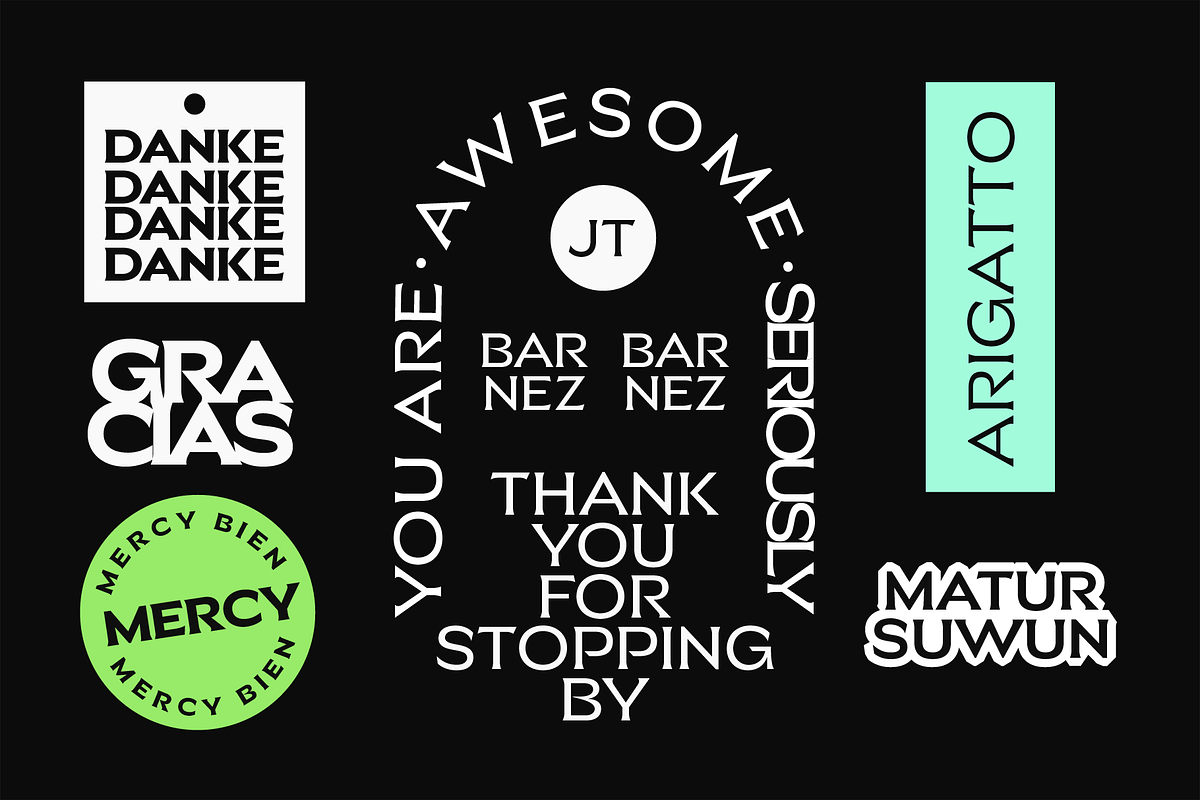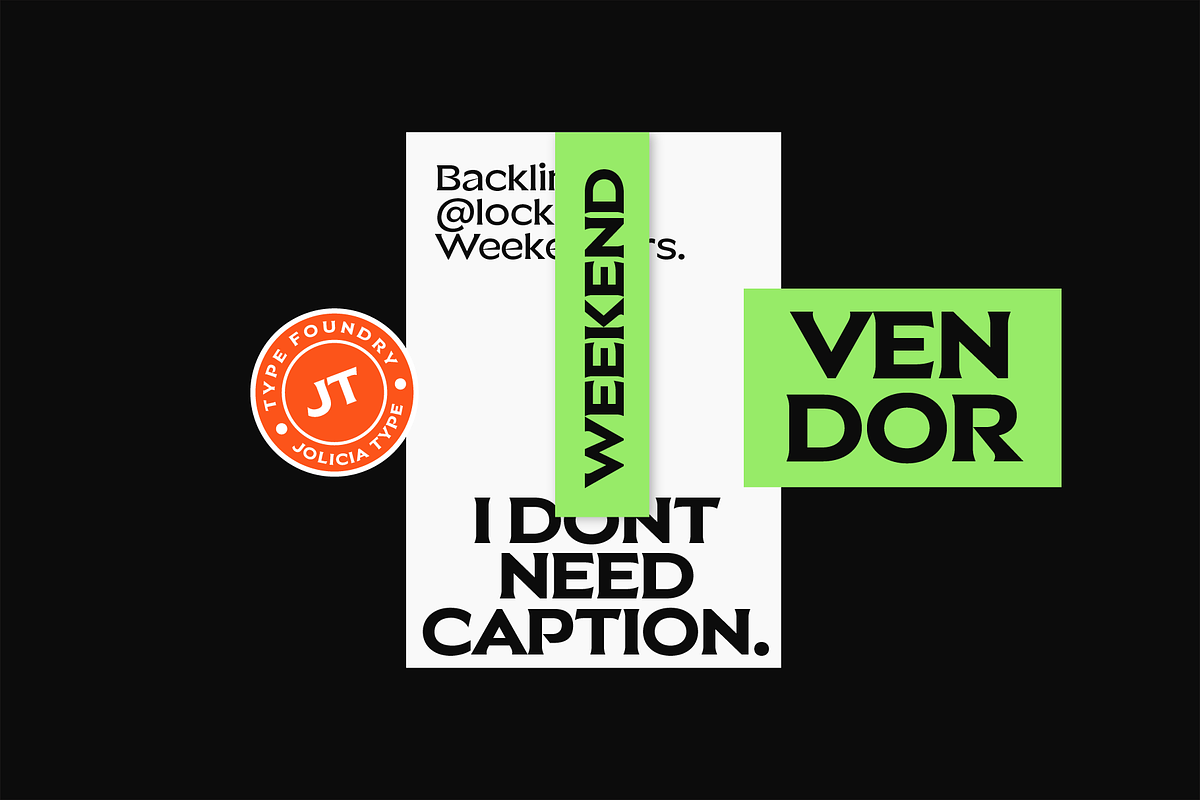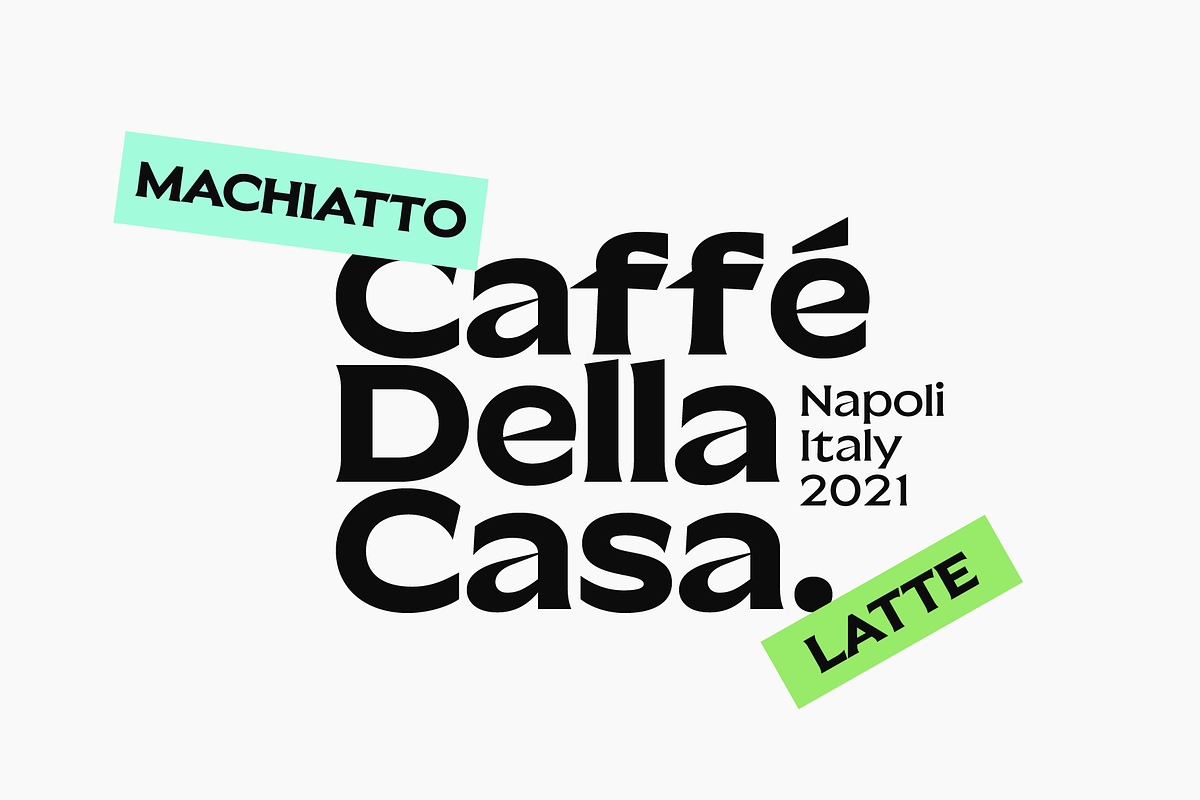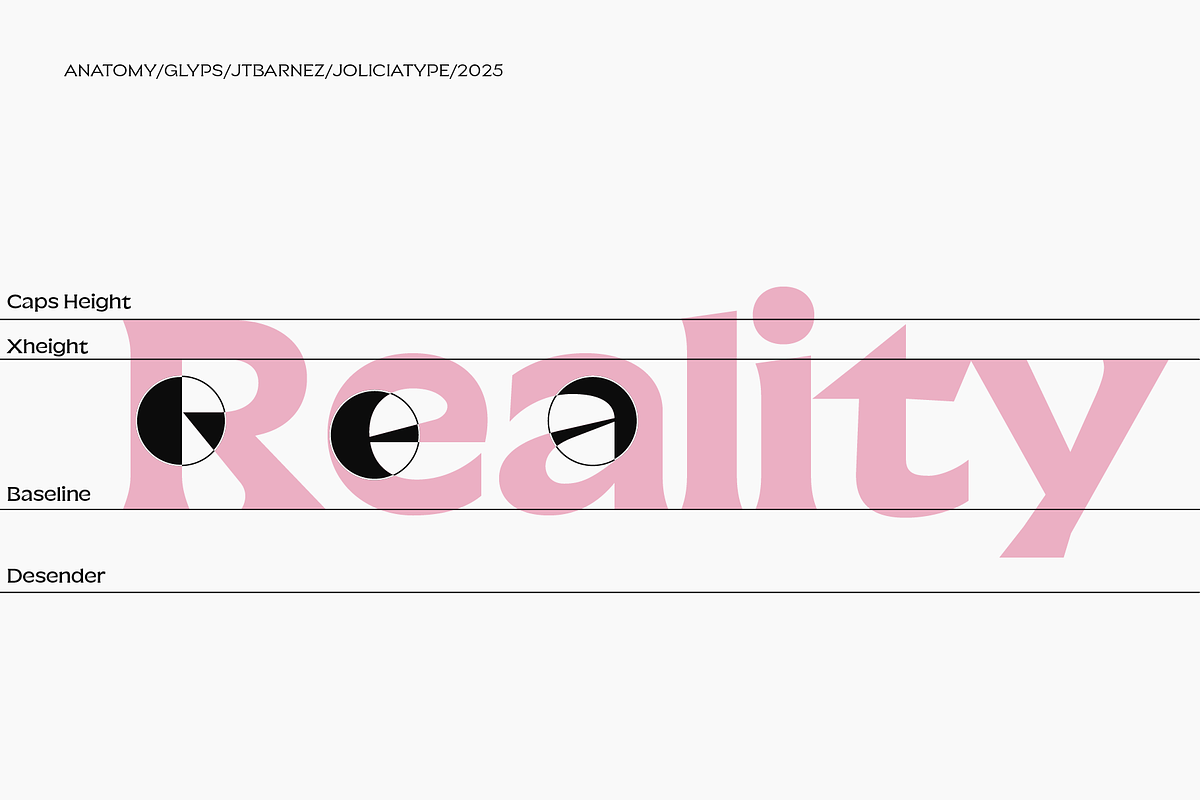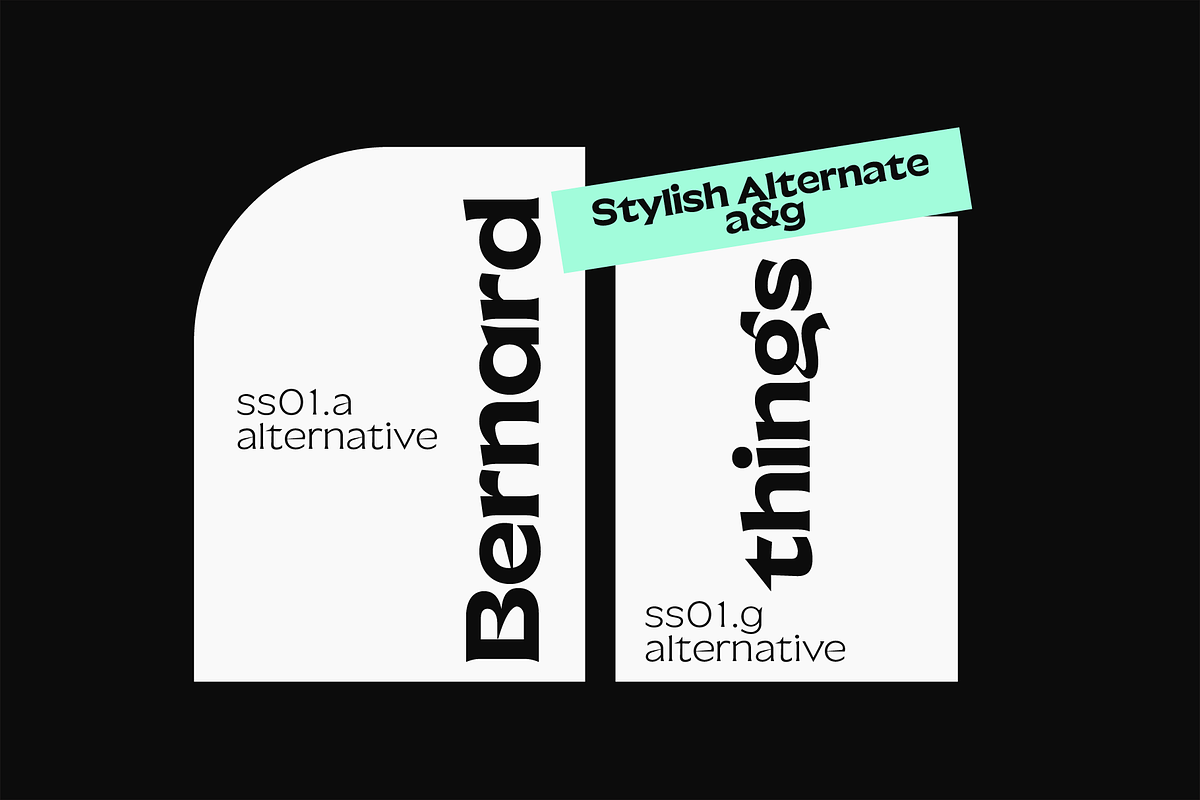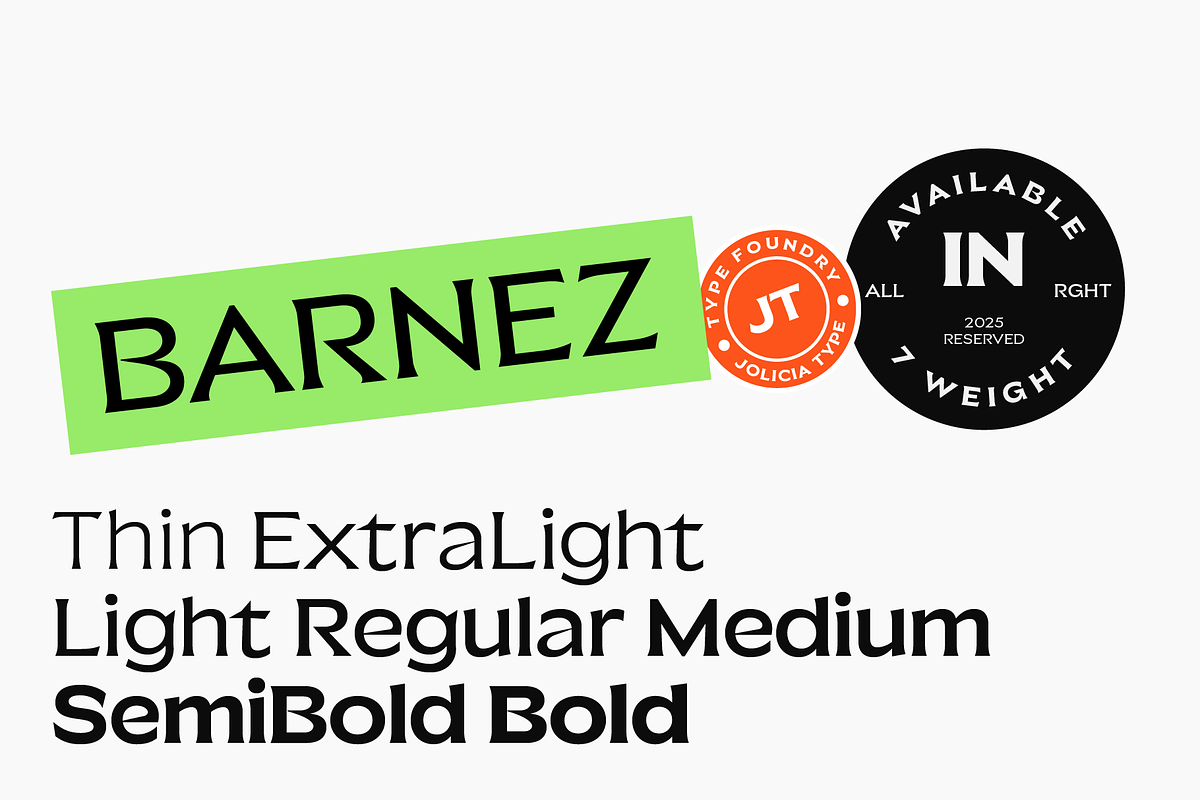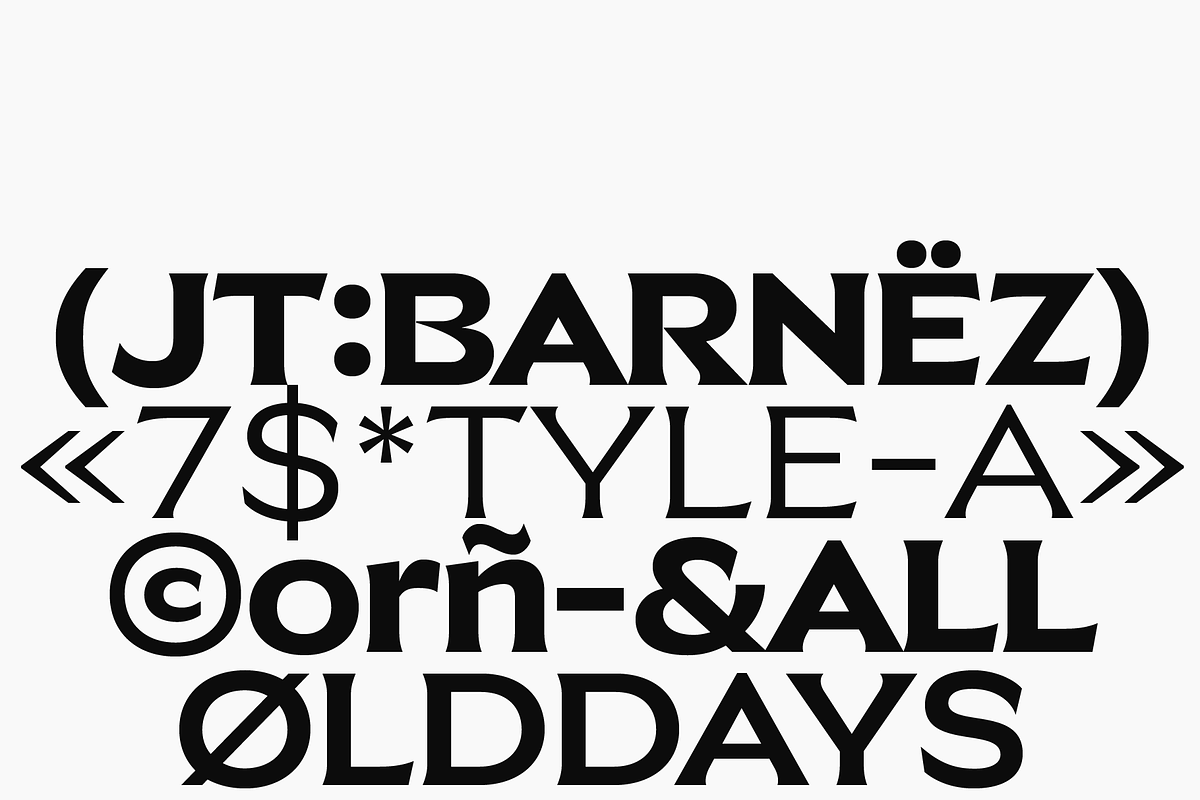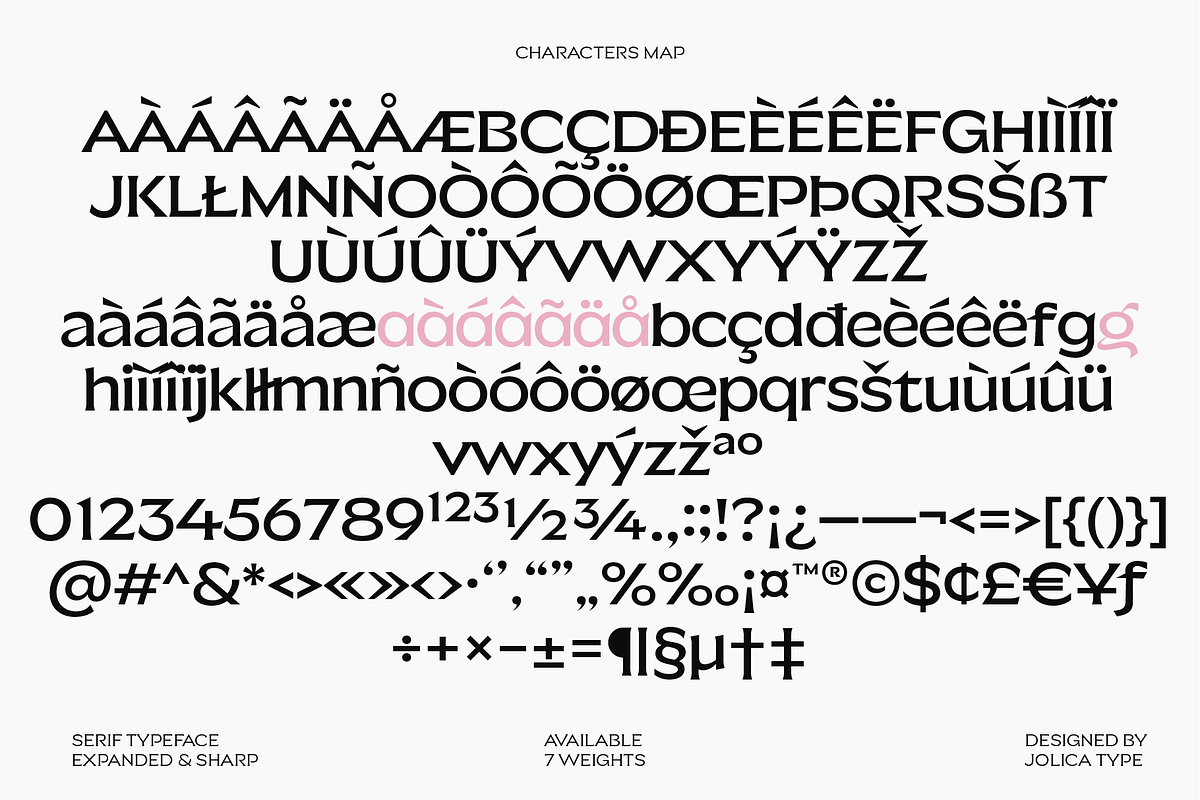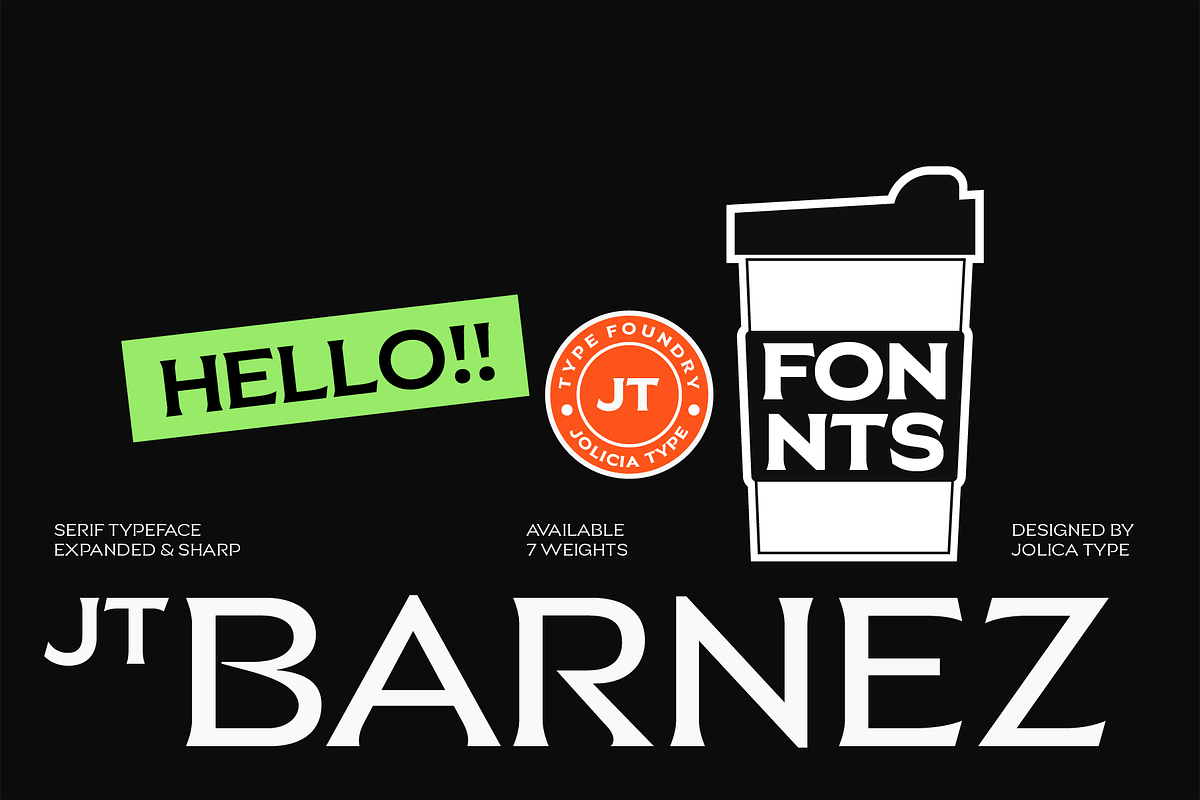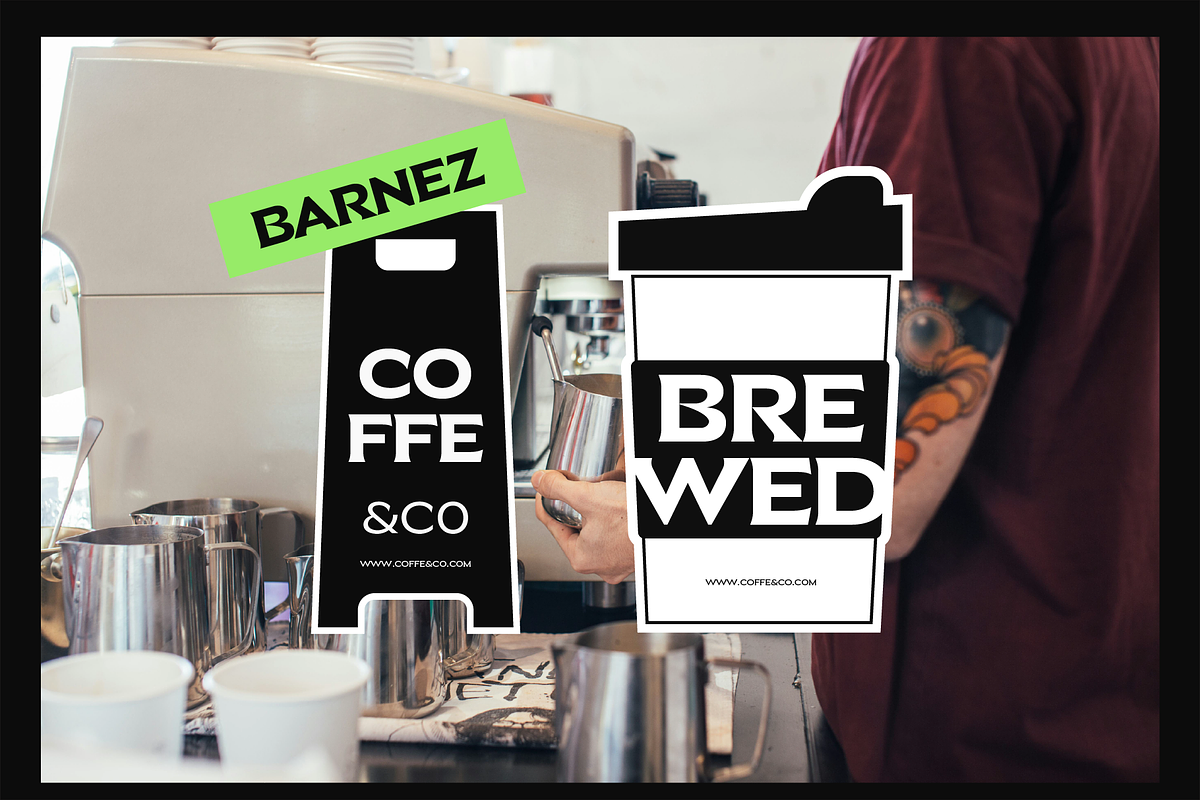
JT Barnez | Modern Sharp Serif
JT Barnez is a refined hybrid typeface combining the subtle elegance of a serif with the clarity of a clean sans-serif. Designed with expanded proportions and precise, sharp detailing, JT Barnez delivers a bold visual presence while maintaining a modern, minimal, and effortless aesthetic.
The serif elements are intentionally subtle almost invisible creating a smooth fusion that feels contemporary, stylish, and forward-thinking. Each character is shaped with crisp edges and thoughtful spacing, resulting in typography that feels confident, structured, and visually striking.
JT Barney comes in 7 weights to support flexible design needs: Thin, Extra Light, Light, Regular, Medium, SemiBold, and Bold. From delicate editorial accents to strong typographic statements, JT Barnez adapts seamlessly across styles and scales.